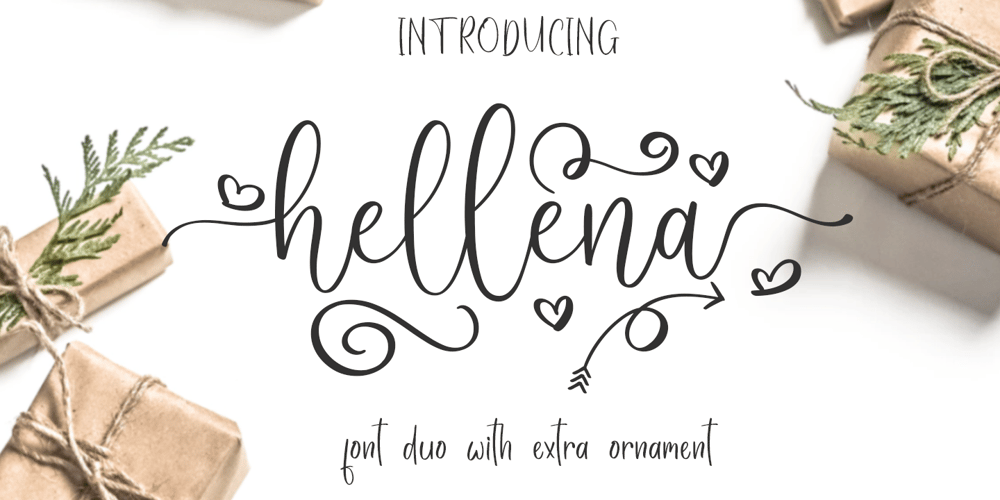
Hellena
Hellena font
Hellena Font Family was designed by Sarwo Edhi Prayitno and published by Haksen. Hellena contains 3 styles and family package options. Hellena Font Duo with additional Ornament!If you are needing a touch of casual chic calligraphy for your designs, this font was created for you!Hellena script was built with OpenType features and includes beginning and ending swashes, alternate characters for both lowercase and uppercase letters, loads of different swash alternates for lowercase letters, numbers, punctuation, alternates, ligatures and it also supports other languages 🙂 with many glyphs!Hellena Sans is beauty couple for Hellena ScriptHellena Ornament available OpenType features with klick on All Capital and Lowercase also in Number and get the ornament character.Accessing the swashes / opentype features / glyphs:This font works best in a program that supports OpenType features such as Adobe Indesign, Adobe Illustrator CS, or Adobe Photoshop CC. You can access the swashes and alternates from the ‘Glyphs Panel’ in these programs.More Questions? Here are some (potential) answers! Multilingual Support is included for Western European Languages Also, the sans-serif font used in the preview images is Gotham 🙂